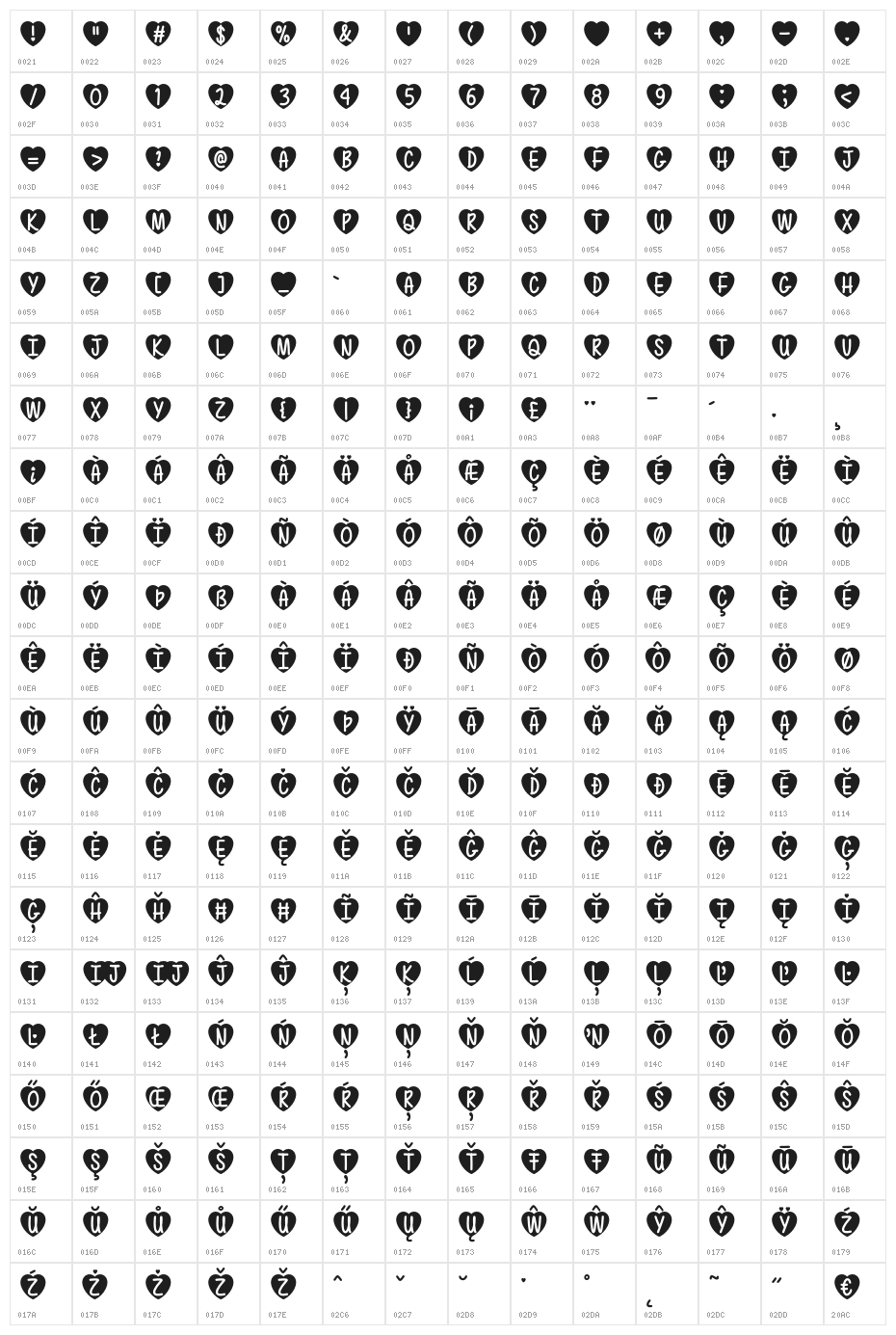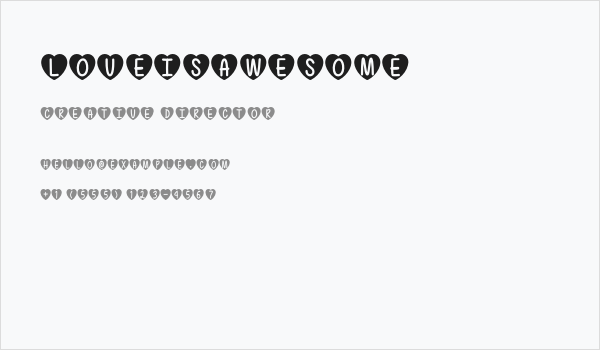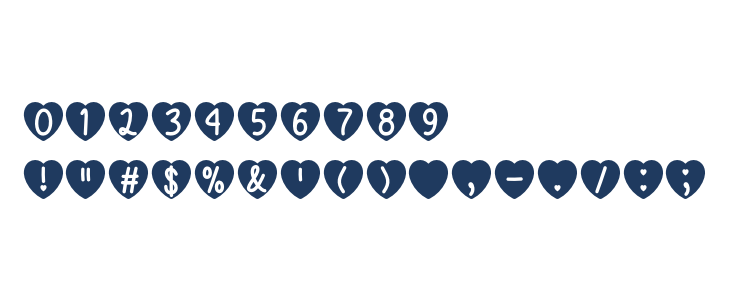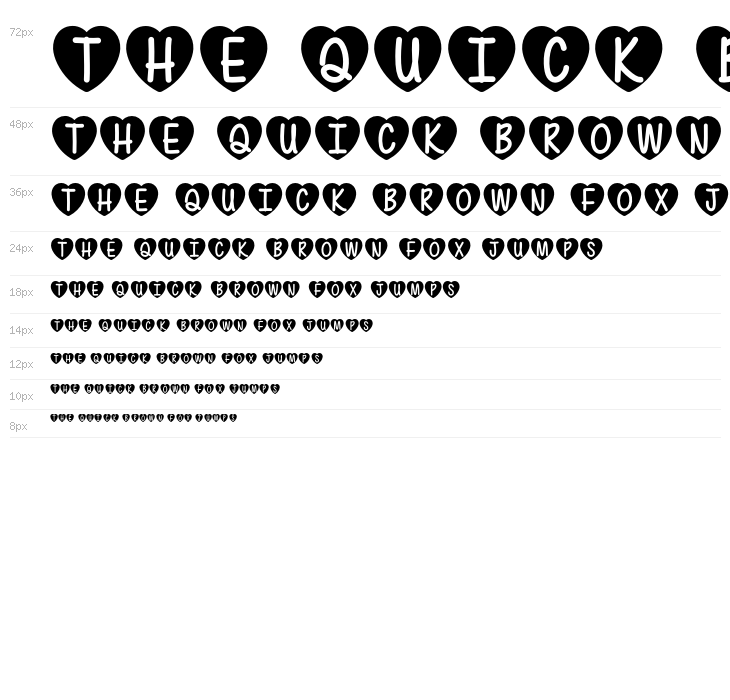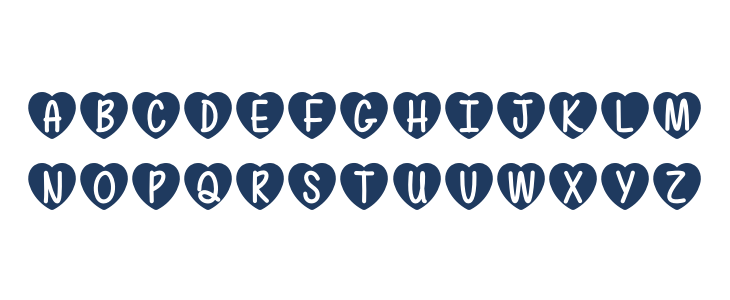
LoveIsAwesome Font
LoveIsAwesome Description
This playful and decorative font features characters enclosed within heart shapes, creating a whimsical and romantic aesthetic. The letters are bold and rounded, with a consistent thickness that ensures readability while maintaining a fun and engaging appearance. The heart motif adds a unique charm, making it ideal for projects that require a touch of love and creativity. The font includes both uppercase and lowercase letters, numbers, and a variety of special characters, all maintaining the heart-shaped design. This cohesive style makes it suitable for themed designs, especially those related to love, celebrations, or children's projects.
| Proposed Projects | Ideal for Valentine's Day cards, wedding invitations, children's party invitations, and playful branding. |